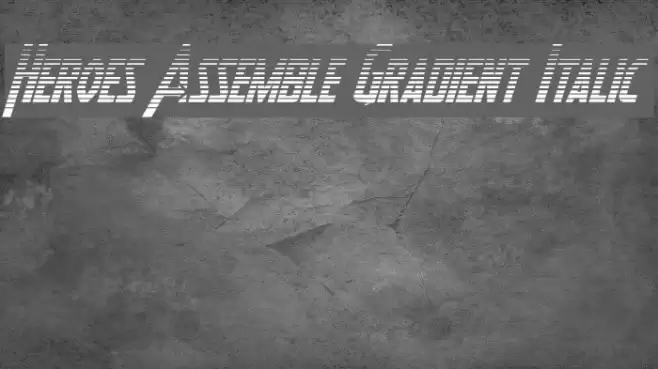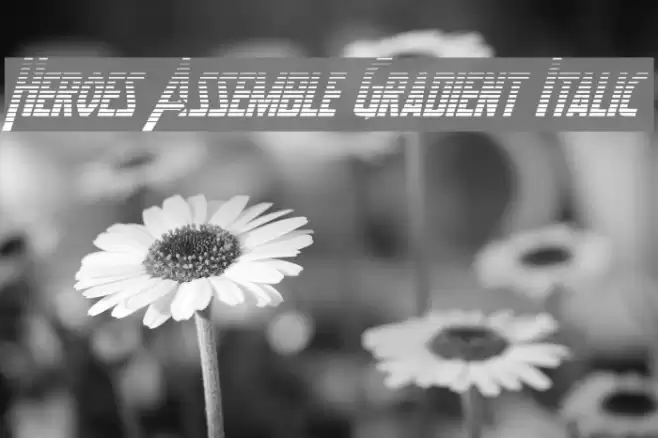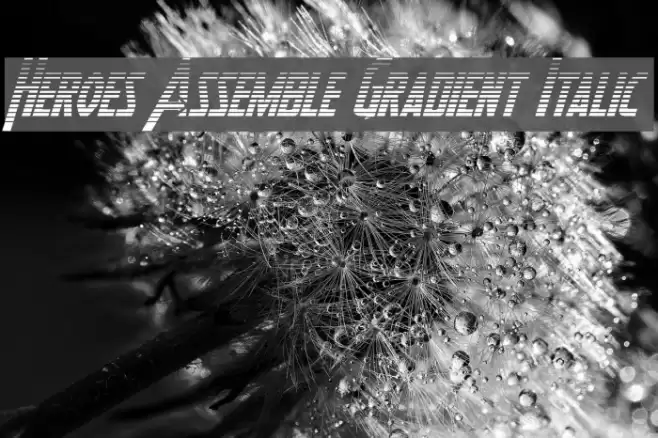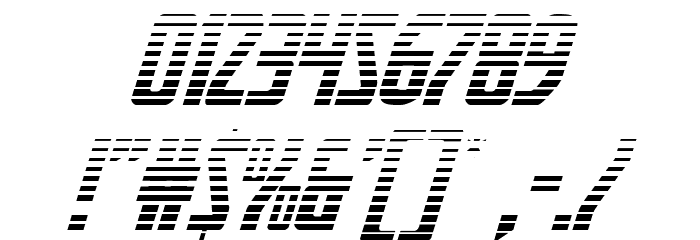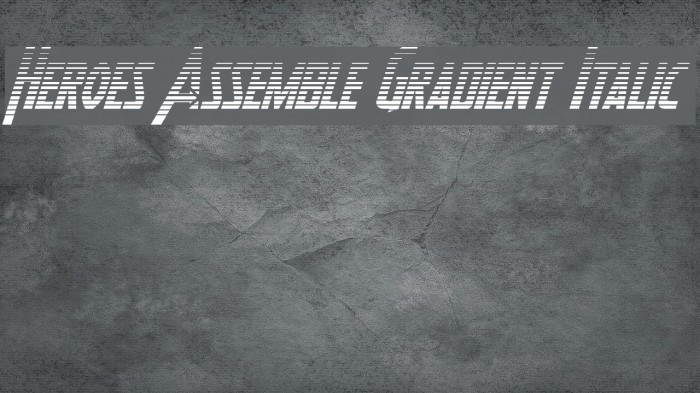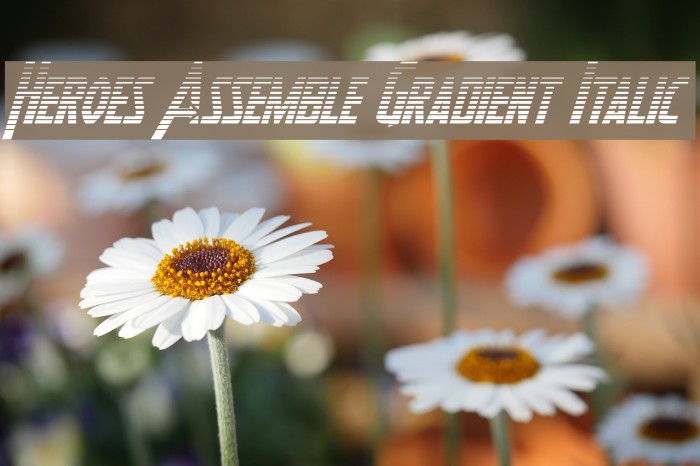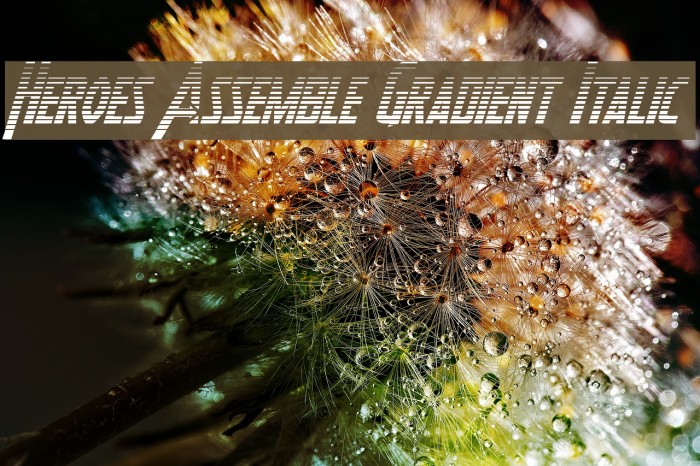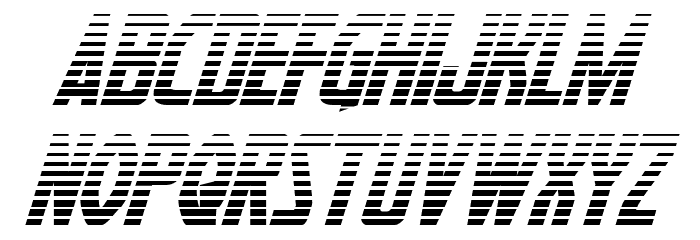
Heroes Assemble Gradient Italic Font
Heroes Assemble Gradient Italic Description
This font features a dynamic and energetic design with a distinct italic slant, giving it a sense of motion and speed. The characters are composed of horizontal lines that create a gradient effect, enhancing the feeling of movement. The bold and wide letterforms are striking and attention-grabbing, making it ideal for impactful headlines or titles. The uppercase and lowercase letters maintain a consistent style, while the numerals and special characters complement the overall aesthetic. This font's unique style is perfect for projects that require a modern and futuristic look.
A bold, italic font with a gradient line effect, conveying speed and modernity from Uncategorized fonts.
- Proposed Projects: Ideal for sports branding, action movie posters, video game titles, and dynamic advertisements.